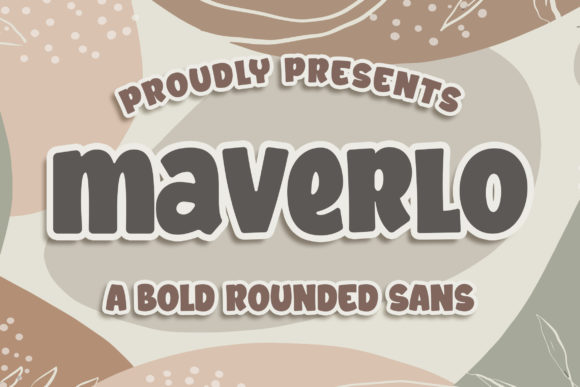
"Unlock Your Creativity with Maverlo Font: A Typographic Adventure Like No Other."
Prepare to be mesmerized by the enchanting Maverlo Font, a remarkable display font that ignites your imagination and transforms your designs into captivating masterpieces. This exceptional creation from the esteemed Blankids Studio is a symphony of bold and thick letters, meticulously crafted to evoke joy, charm, and a touch of nostalgia.
With Maverlo Font as your creative companion, you'll embark on a typographic adventure, where every letter becomes a vibrant character and every word a captivating story. Let your imagination soar as you explore the endless possibilities this versatile font offers.
Whether you're designing whimsical posters, captivating children's games, or any project that demands a delightful and heartwarming touch, Maverlo Font will elevate your vision to new heights. Its bold and playful presence commands attention, creating a visual feast that captivates and engages your audience.
Unleash the magic of Maverlo Font and witness the transformation of your designs into captivating works of art. Its enchanting aura will captivate your audience, leaving a lasting impression that lingers in their minds long after they've encountered your creations.
Don't settle for ordinary fonts. Embrace the extraordinary with Maverlo Font, the key to unlocking a world of creativity boundless and unforgettable. Let your imagination run wild and let Maverlo Font be your guide on this extraordinary typographic journey.